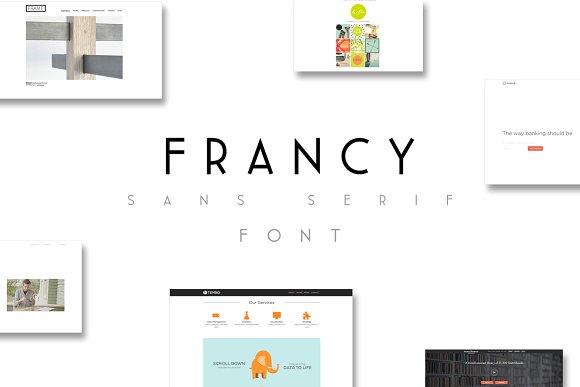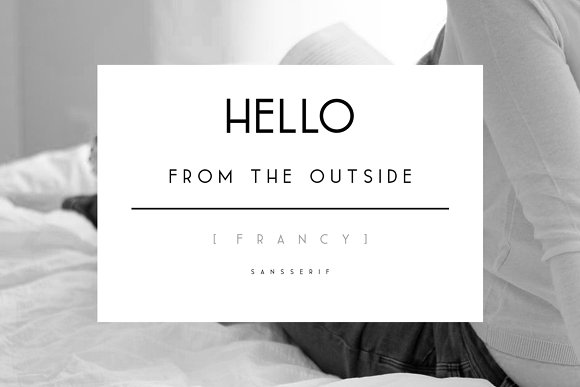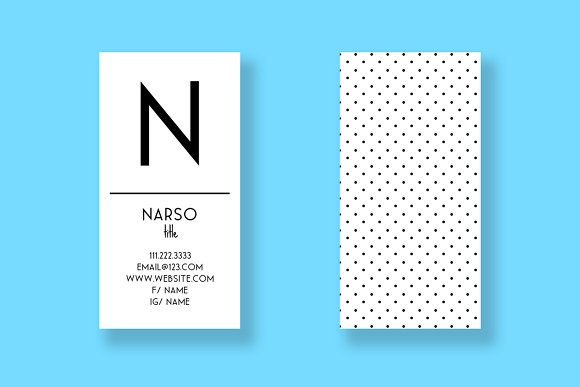
Francy Font
Francy is a bold sans serif with solid and outlined font files. Francy is suitable for Logo, greeting cards, quotes, posters, branding, name card, stationary, design title, blog header, art quote, typography art, modern envelope lettering or book design, happening style like handdrawn design or watercolor design theme, craft design, any DIY project, book title, wedding font, pop vintage design, or any purpose to make our art/design project look pretty and trendy.